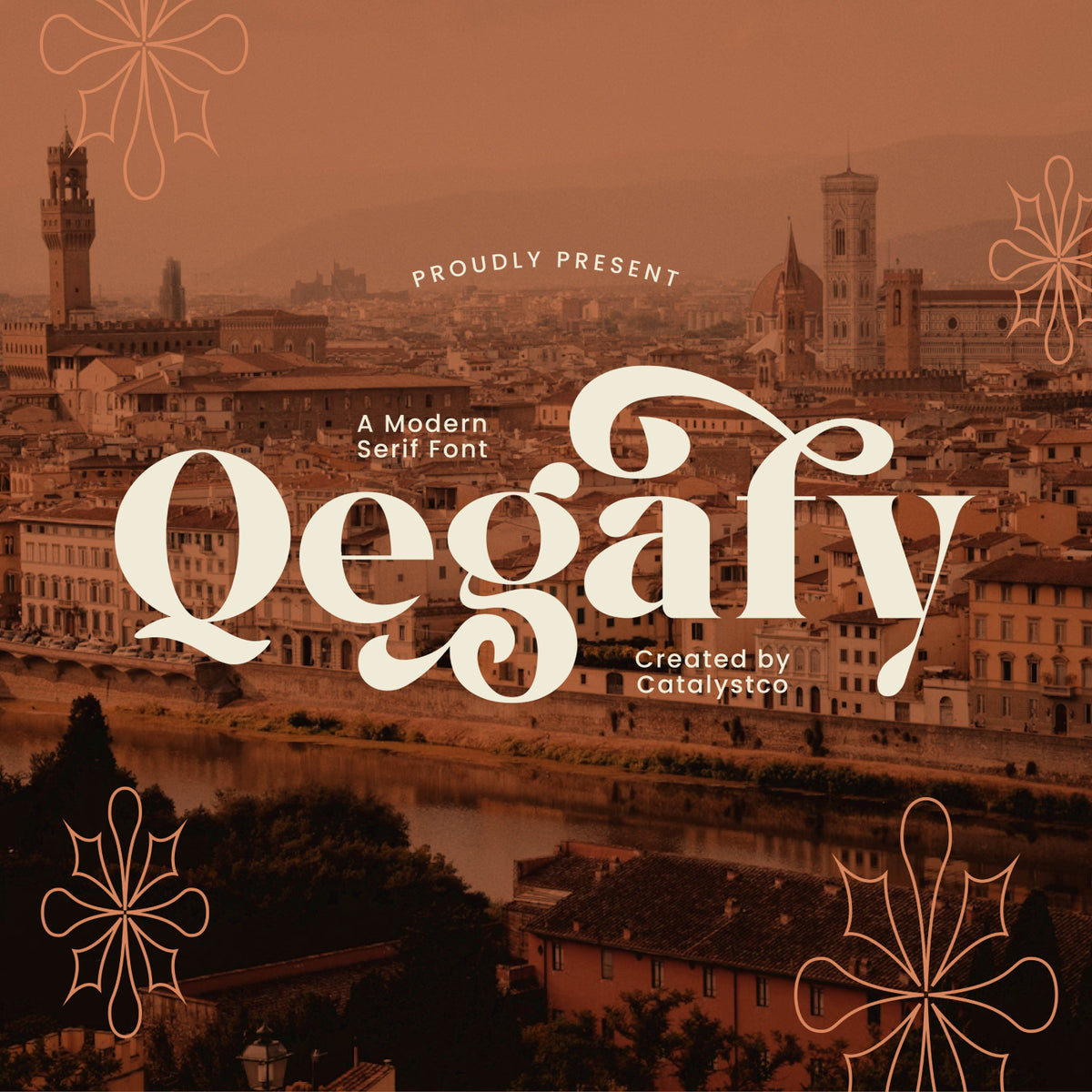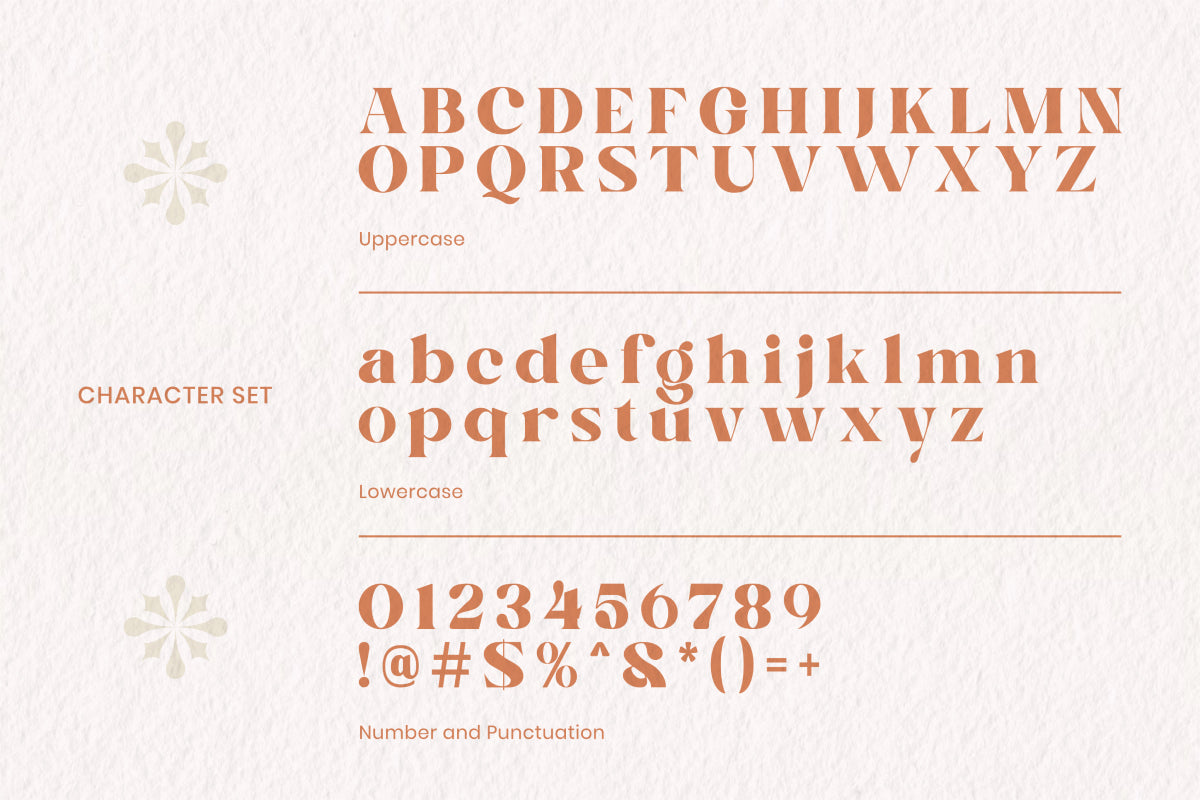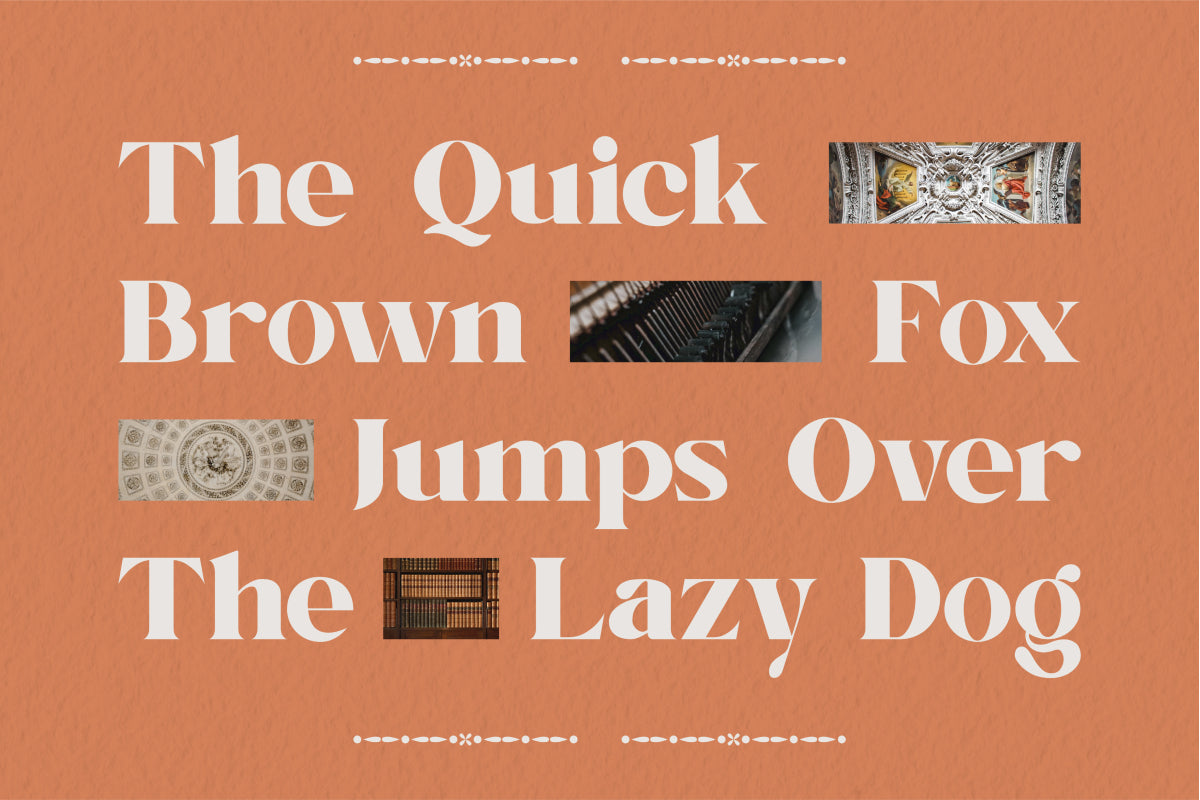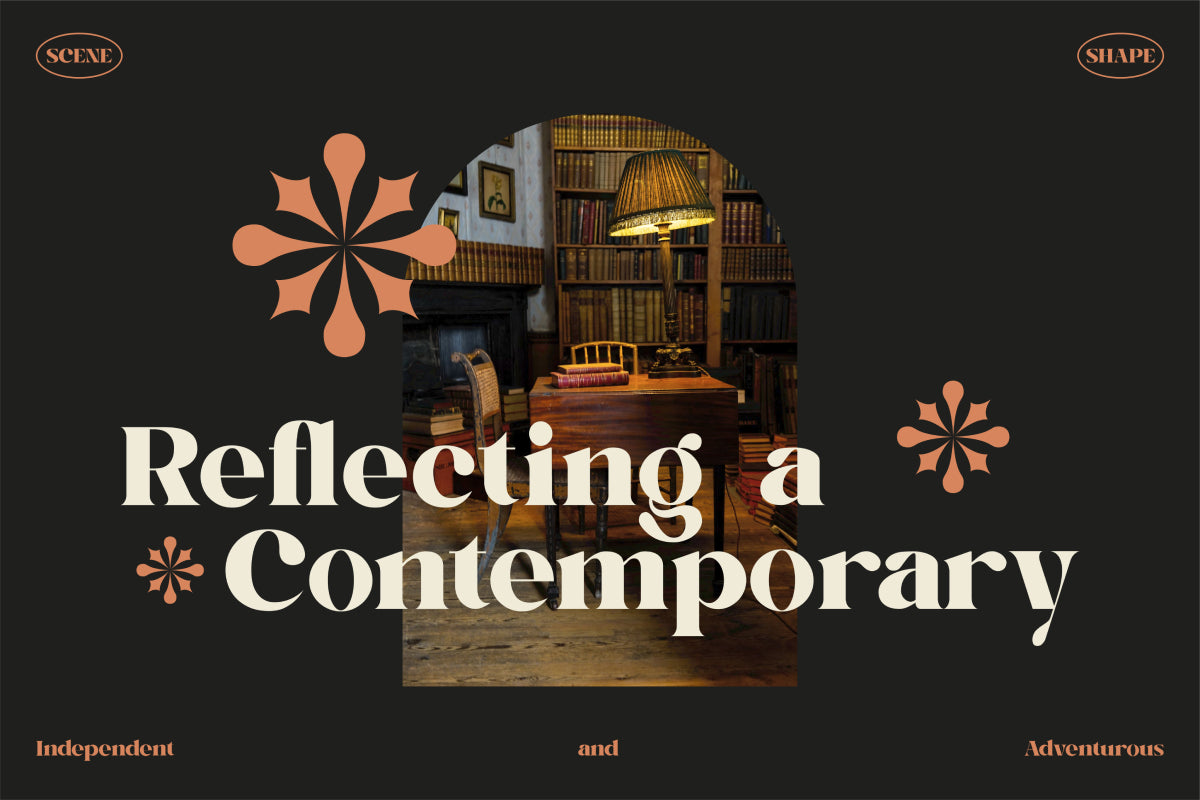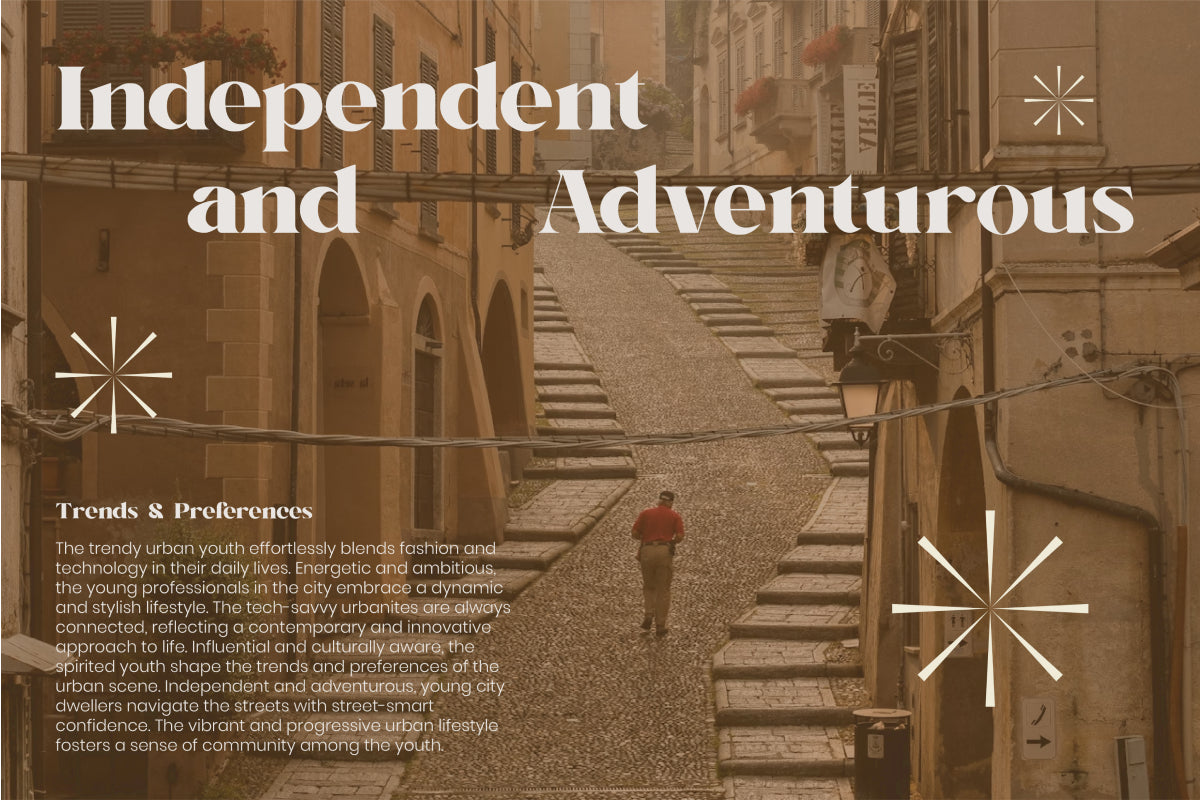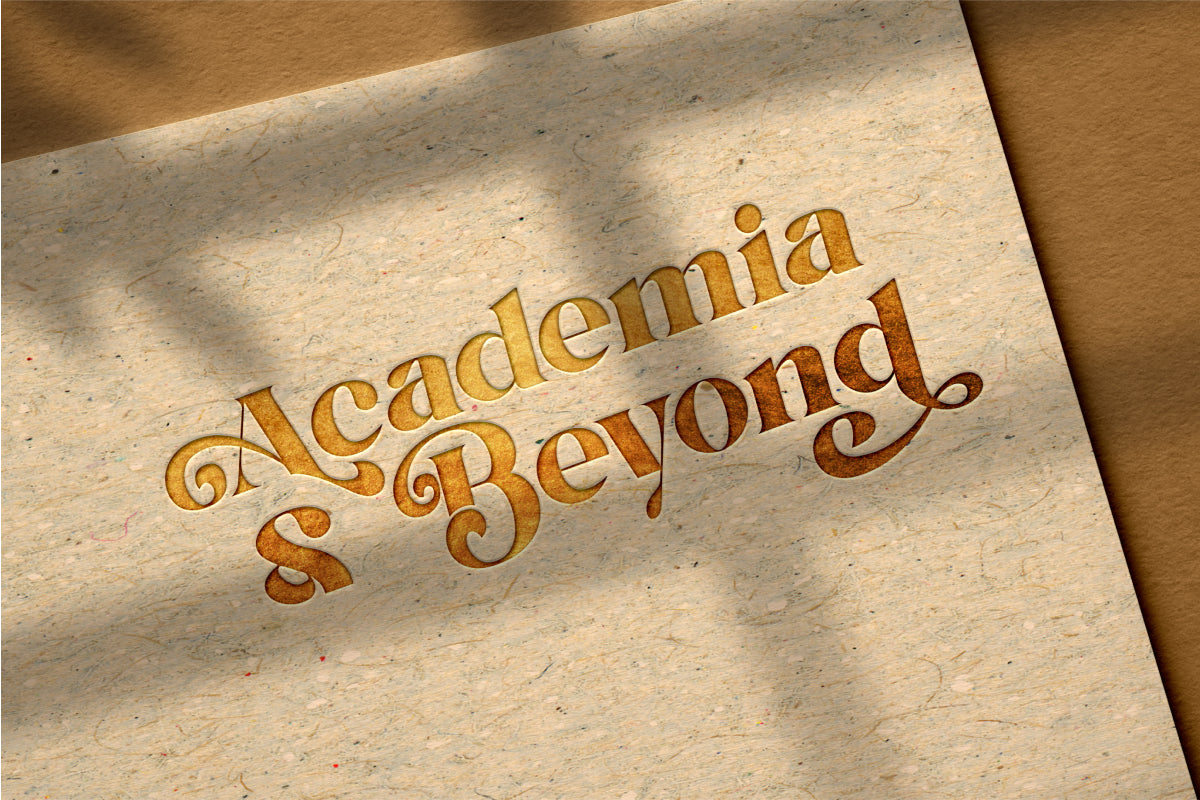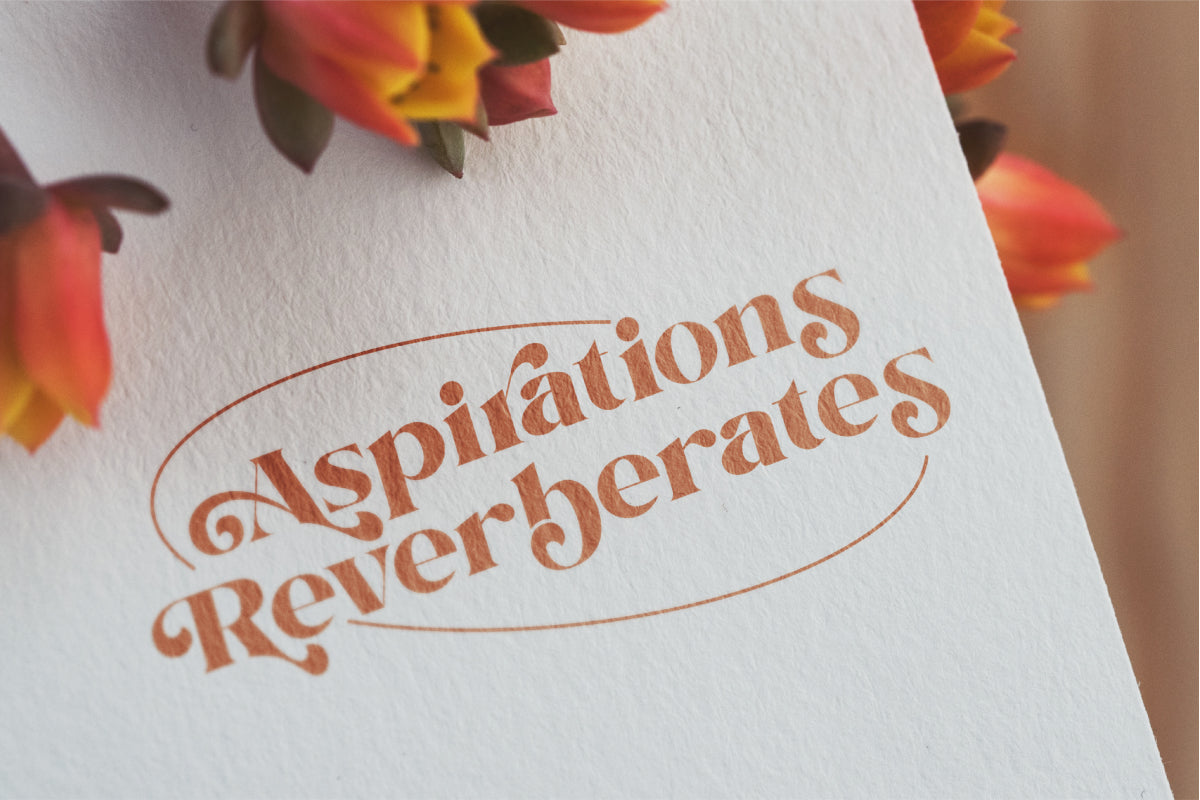
Qegafy Modern Serif Font
Qegafy Modern Serif Font Font is a modern serif font that blends elegance with strong visual presence. Its smooth curves and refined details make it perfect for luxury brand design, editorial layouts, and signature logo work. The font’s feminine and decorative touches position it as a go-to choice for premium font applications, including wedding fonts, beauty packaging, and high-end branding. With a stylish balance between elegant serif tradition and modern visual flair, Qegafy supports both expressive typography and professional font needs in fashion and creative industries.